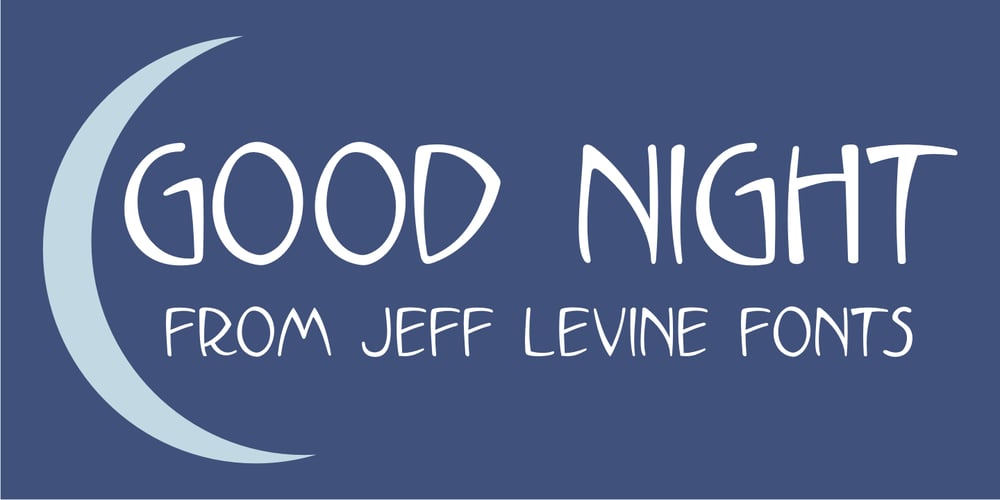
Good Night JNL Font Family was designed by Jeff Levine and published by Jeff Levine. Good Night JNL contains 1 styles and family package options. The beautiful hand lettering on the sheet music cover for Will R. Anderson’s “Good Night Dear” (circa 1908) features quaint, semi-calligraphic lettering in the Art Nouveau Style. The song itself was popularized by Billie Burke [best remembered as the Good Witch in “The Wizard of Oz”] in the musical comedy “Love Watches”.